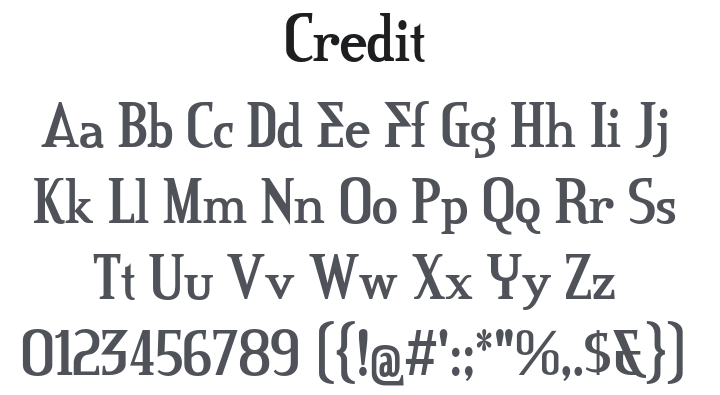
Credit Font Family
About Credit
Credit is a postmodern serif typeface with a clean, contemporary structure — bracketed serifs and balanced proportions give it an air of quiet sophistication that sits comfortably between classic and modern. Its versatile, legible character makes it useful for both display headlines and short body text. Great for editorial design, book covers, corporate identity, and upscale branding.